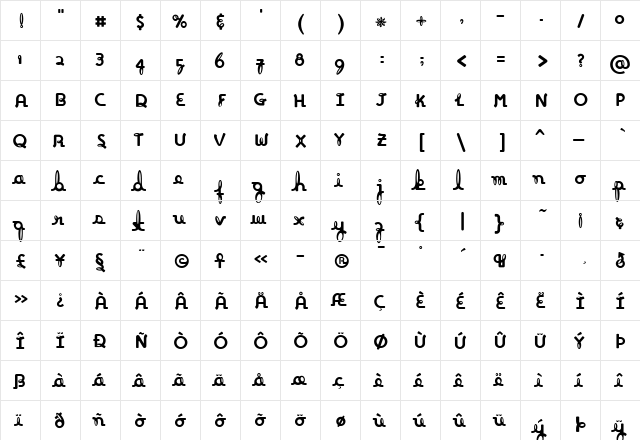
Inkling Regular
Design Context for Inkling Typeface
Inkling is a composed and adaptable typeface that performs quietly and consistently across a wide range of design contexts.